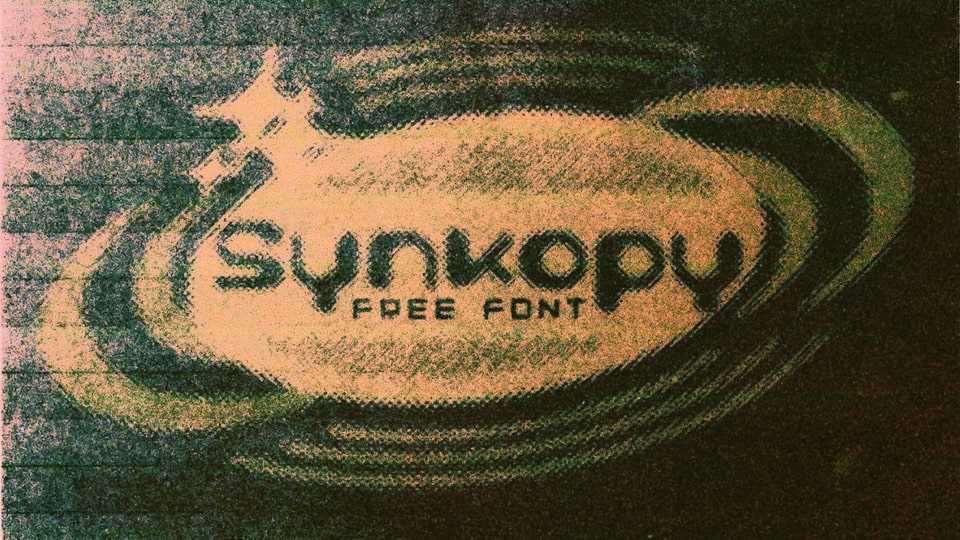
Download Synkopy font, a display typeface where Y2K meets grunge (post-modern). Synkopy comes with regular and flipside versions. Flipside changes the direction the weight of the letters are facing.